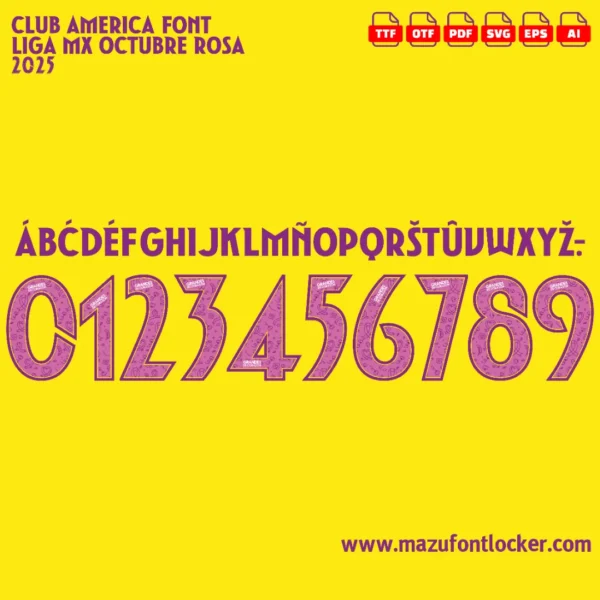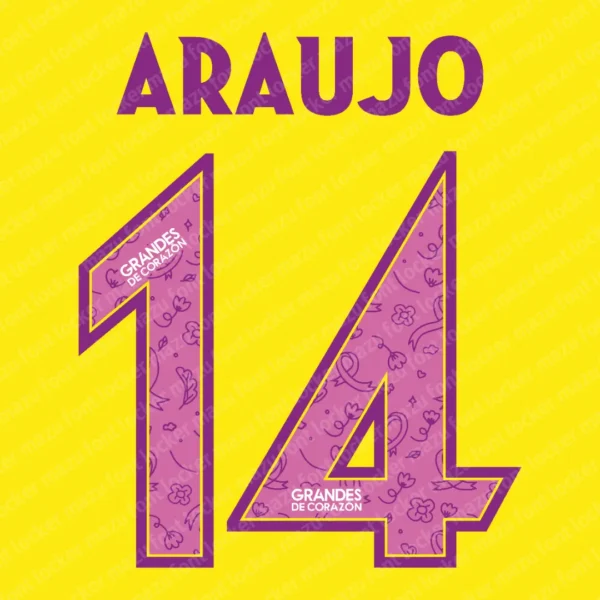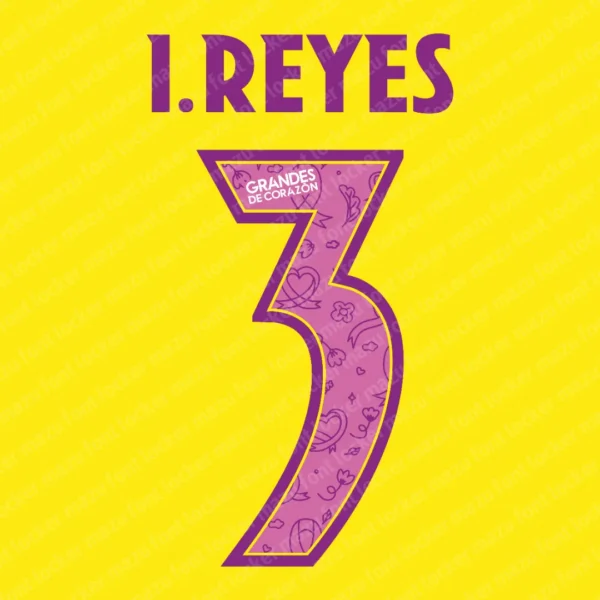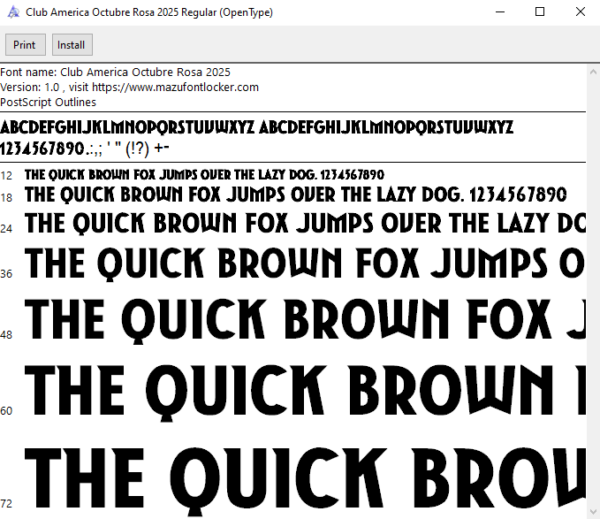
Club America Octubre Rosa 2025 Font Vector – Epic Águilas Pink Masterpiece
This font captures the commanding, elegant yet aggressive lettering that perfectly reflects Club América’s legendary warrior identity, rich Mexican football heritage, never-say-die mentality, and explosive attacking power — delivering unmatched authenticity, premium quality, vibrant energy, and elite Liga MX dominance for professional jersey mockups, dynamic football graphics, premium sports branding, passionate fan creations, and high-end design projects.
Club America Octubre Rosa 2025 Font Vector – Iconic Pink Typeface
The Club America Octubre Rosa 2025 Font Vector is a premium typeface that accurately recreates the official match lettering worn by Club América during their special Octubre Rosa 2025 campaign. This high-quality vector font kit captures the bold, elegant, and vibrant typography that perfectly complements the club’s striking pink kit for breast cancer awareness.
Designed for professional designers, football enthusiasts, and passionate Club América supporters, the Club America Octubre Rosa 2025 Font Vector delivers exceptional authenticity for creating realistic jersey mockups, football merchandise, social media graphics, match posters, and custom fan artwork. Every character has been carefully recreated to match the modern and powerful visual style of one of Mexico’s biggest and most successful football clubs.
Why Choose Club America Octubre Rosa 2025 Font Vector
This font stands out thanks to its precise vector construction and authentic club styling. Every letter and numeral has been meticulously recreated to match the official shirt lettering used throughout the Octubre Rosa 2025 awareness campaign. Whether you’re producing professional kit templates or creating eye-catching football content, the Club America Octubre Rosa 2025 Font Vector delivers a genuine match-ready appearance.
The lettering featured in the Club America Octubre Rosa 2025 Font Vector combines clean geometric lines with powerful modern proportions and elegant pink-inspired flair. The result is a premium and highly readable typeface that reflects Club América’s fighting spirit, proud tradition, and commitment to important social causes.
- Complete uppercase A–Z alphabet and numbers 0–9 in authentic Club América Octubre Rosa 2025 style
- Create authentic Club America Octubre Rosa 2025 home jersey mockups
- Design professional football posters, squad graphics, and awareness campaign artwork
- Produce custom Club América-inspired merchandise and fan projects
- Includes authentic Liga MX badge glyph placement beneath player numbers
Club America Octubre Rosa 2025 Season
The Octubre Rosa 2025 campaign marks another powerful initiative by Club América in support of breast cancer awareness. Wearing their iconic pink kit, the team continues to combine sporting excellence with meaningful social impact, honoring fighters and promoting awareness across Mexico and beyond.
The Club America Octubre Rosa 2025 Font Vector is an independently designed typeface package inspired by the official shirt lettering worn during the Octubre Rosa 2025 campaign. It has been carefully recreated for football enthusiasts, graphic designers, collectors, and creators producing custom jersey concepts, football artwork, and fan-made projects.